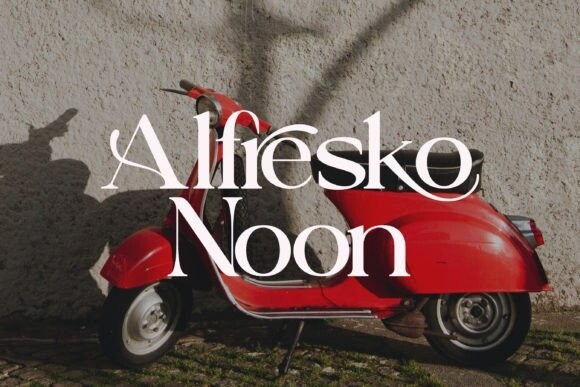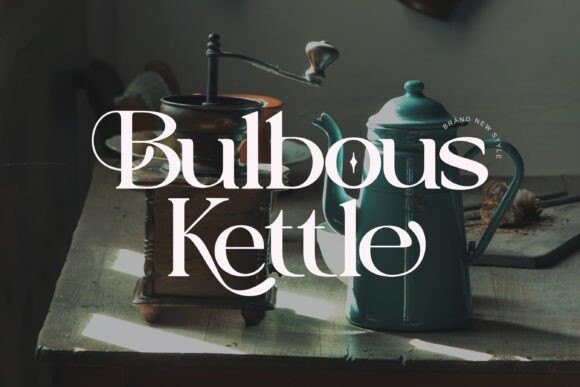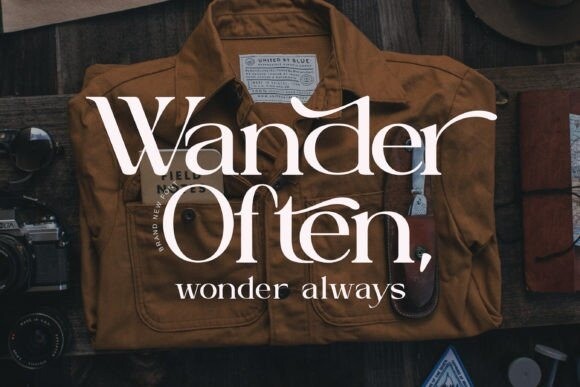
Latosce Font
Latosce Font is a work of art in the form of a classic serif typeface, with a design that exudes a clean, timeless elegance. There’s some connected letters and some alternates that suitable for any graphic designs such as branding materials, t-shirt, print, business cards, logo, poster, t-shirt, photography, quotes .etc
This font support for some multilingual. Also contains uppercase A-Z and lowercase a-z, alternate character, numbers 0-9, and some punctuation.